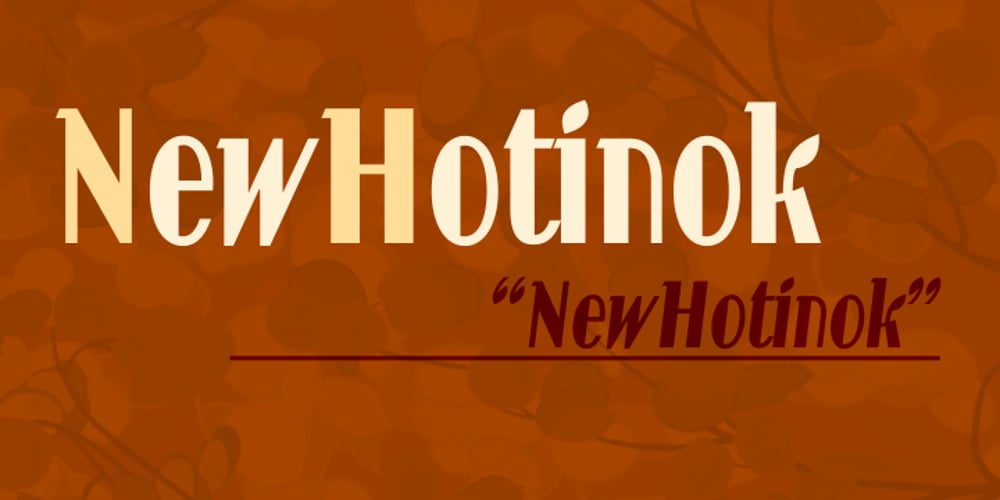
New Hotinok 2D Font Family was designed by Viktor Kharyk, Henadij Zarechnjuk and published by 2D Typo. New Hotinok 2D contains 4 styles and family package options. The type family New Hotinok 2D continues Ukrainian tradition and in the same time connects it with Art Deco style. It is good for presentation, literary, arts and foods, especially sweets and coffee. Connection of geometry and ornamental effect can help in logo design. Includes four styles, Latin diacritics for many languages.